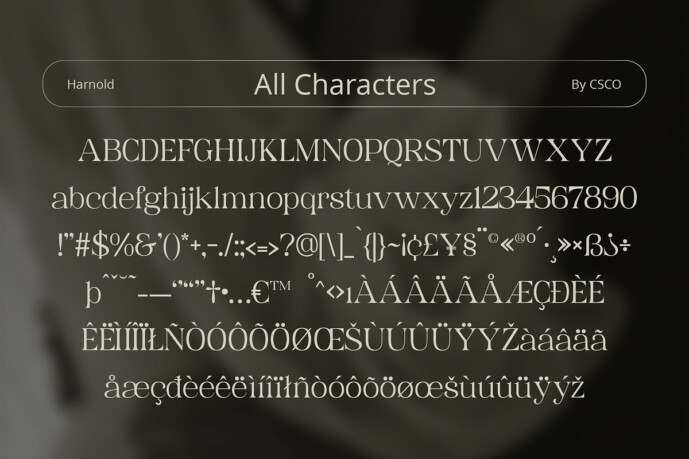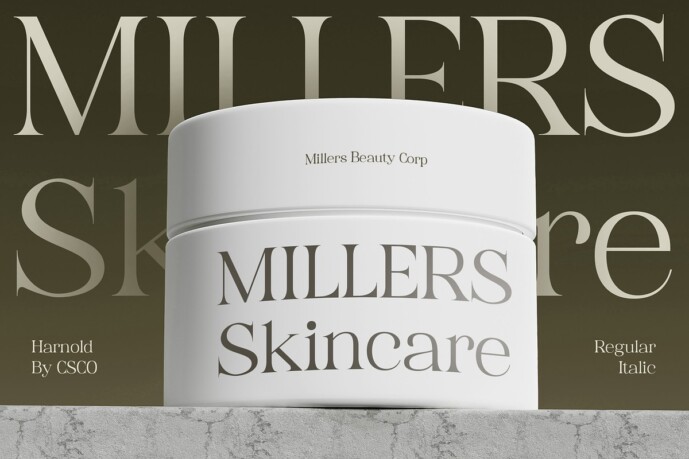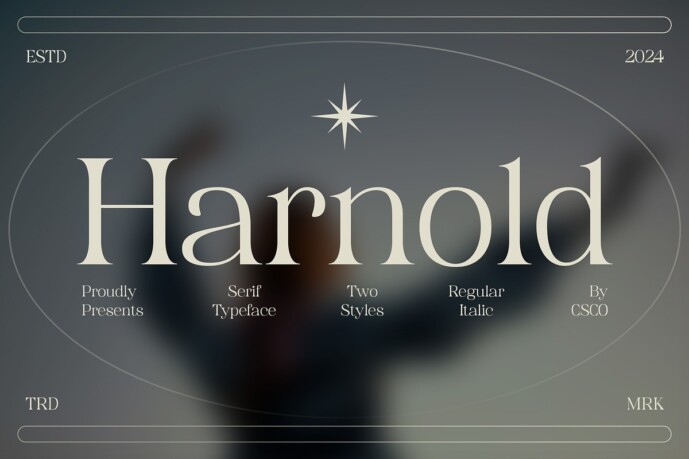
Harnold Font
Harnold Font: A Testament to Timeless Elegance. Exuding Timeless Sophistication Harnold, with its high-contrast serif design, emanates an aura of timeless sophistication and refined elegance in every aspect of its form.
Striking Contrast, Captivating All The pronounced contrast between its thick and thin strokes not only captivates the eye but also adds depth and dimension to each letterform, ensuring an unforgettable visual impact.
Versatility Beyond Measure Versatile in its application, This font seamlessly integrates into various design contexts, from editorial layouts to luxury branding initiatives, invitations, and beyond. Its inherent elegance adapts effortlessly to any project’s demands.
Enduring Legacy As a symbol of enduring elegance, This font transcends fleeting trends, anchoring itself as a timeless staple in the world of typography. Its refined aesthetics promise to leave a lasting impression, standing as a testament to the enduring power of elegant design.